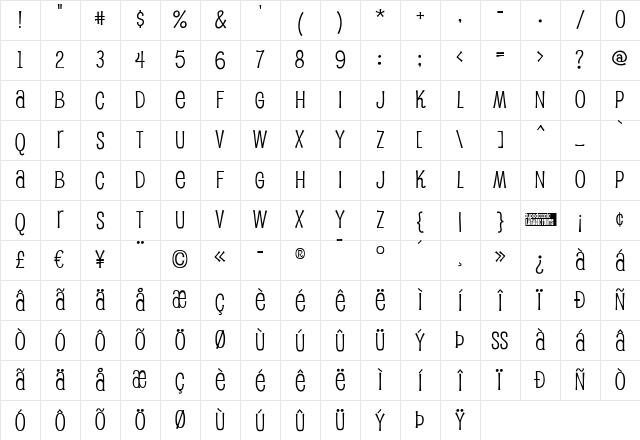
Pupcat Regular
Design Context for Pupcat
Pupcat is a composed and adaptable typeface that performs quietly and consistently across a wide range of design contexts.